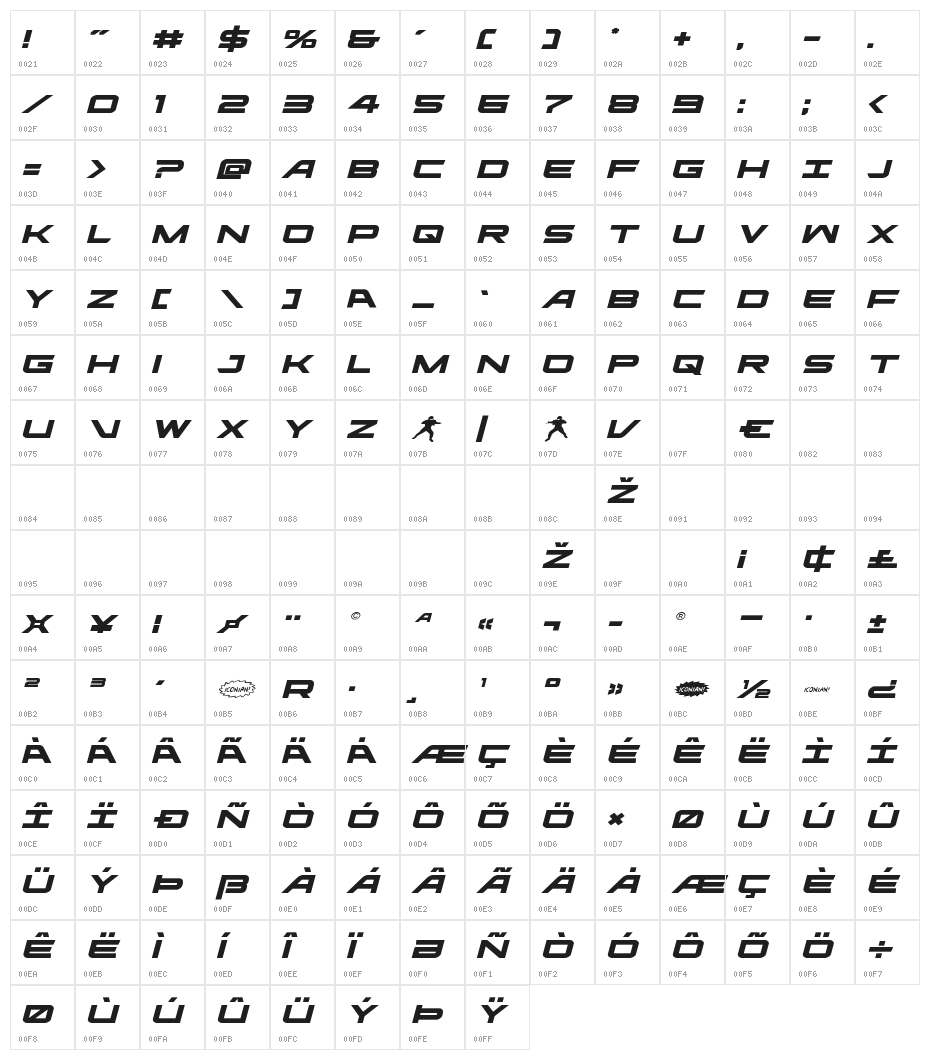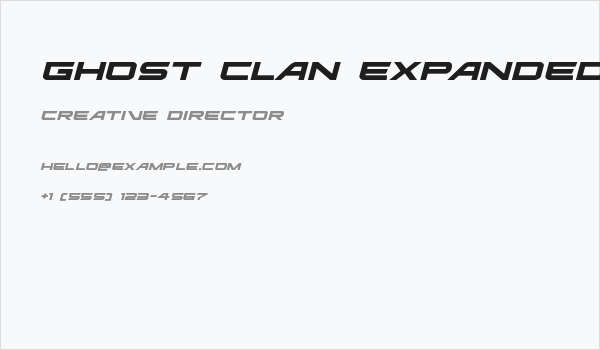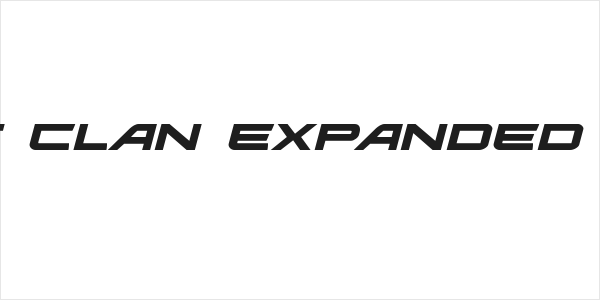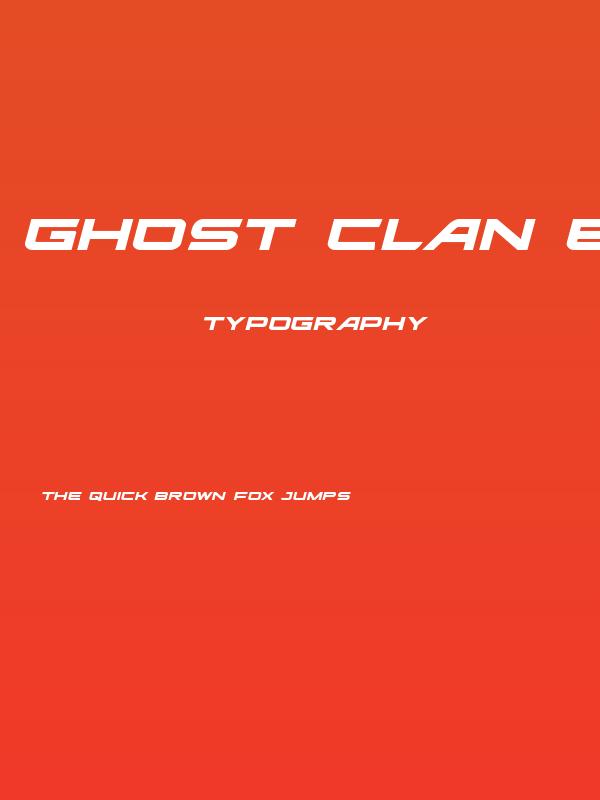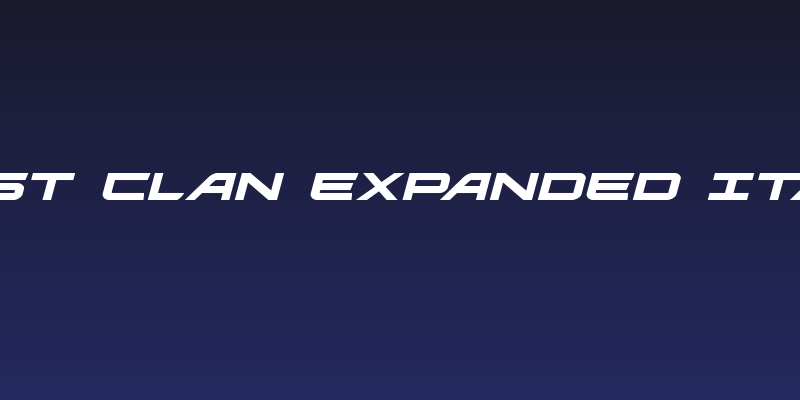
Ghost Clan Expanded Italic Font
Ghost Clan Expanded Italic Description
This font features a sleek, modern design with an italicized slant, giving it a dynamic and forward-moving appearance. The characters are bold and expanded, providing a strong presence on the page. The geometric shapes and clean lines contribute to its futuristic and technical feel. The uppercase and lowercase letters maintain a consistent style, while the numerals and special characters are designed to complement the overall aesthetic. This font is ideal for projects that require a contemporary and assertive look.
| Use Case | Logos, Headlines, Branding |
| Proposed Projects | Ideal for technology branding, sports team logos, modern advertising, and futuristic design projects. |